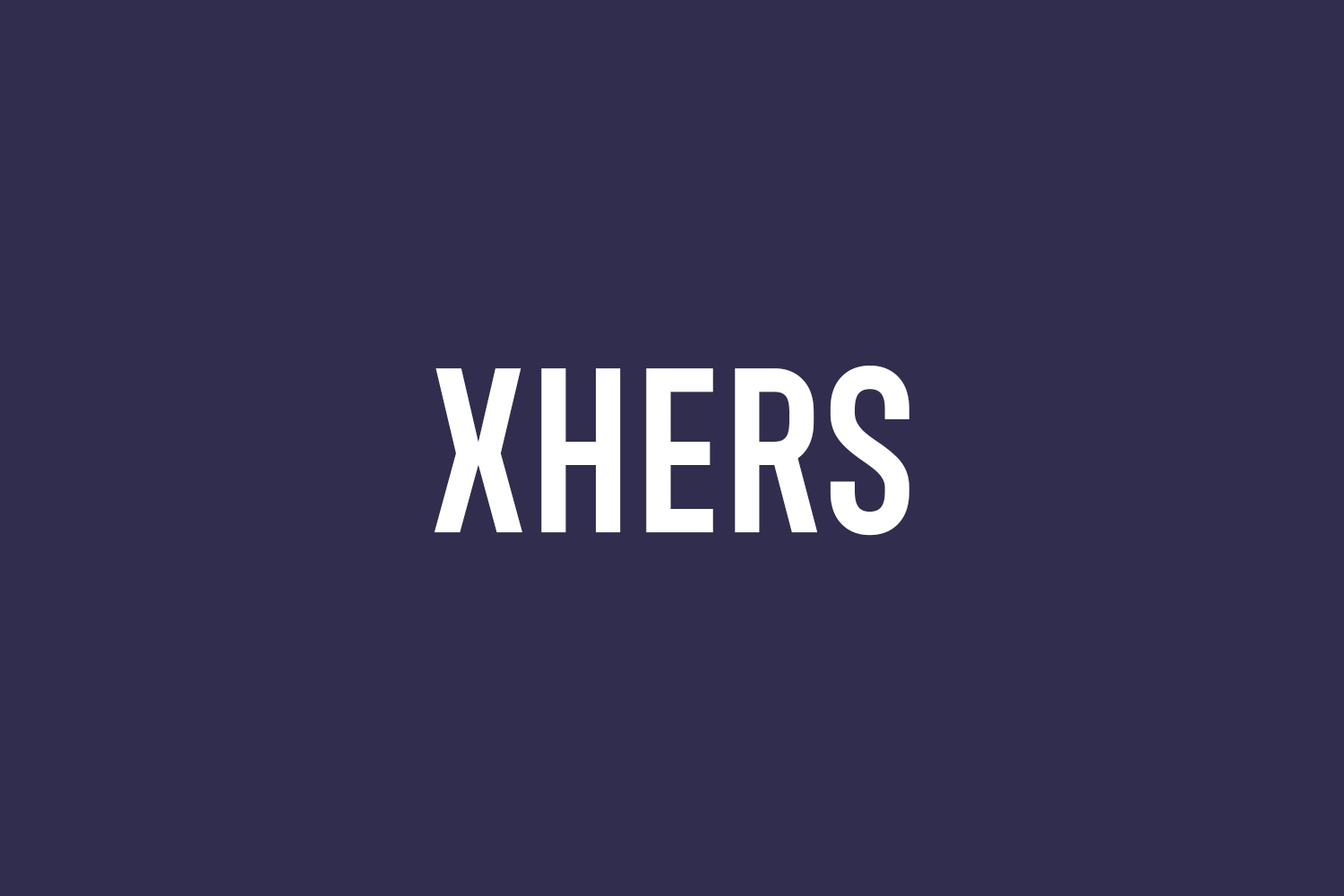
Xhers Free Font Family is a beautiful sans serif all caps font and can provide clean and stylish displays and headline designs. This font is well-weighted and reliable and can enhance modern and bright designs. Xhers Free Font Family was designed by 7NTypes and is free for personal use only. Please purchase the full version for commercial use.